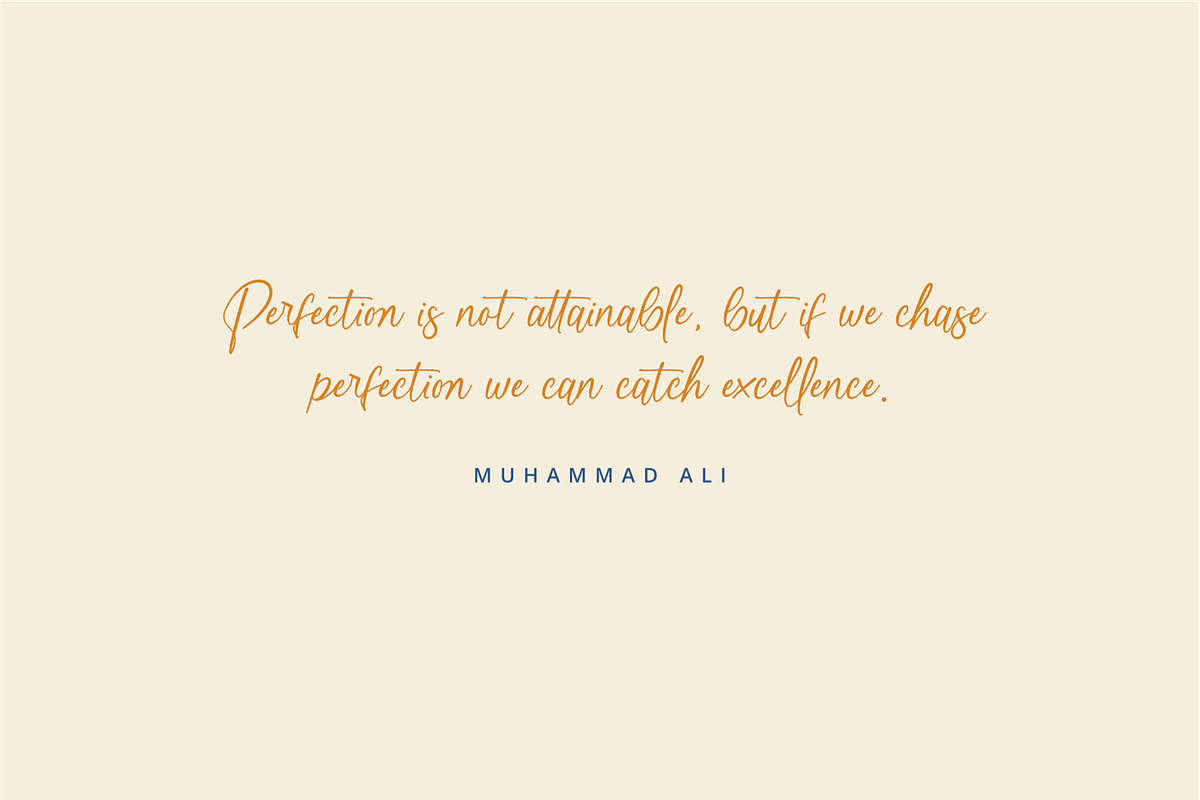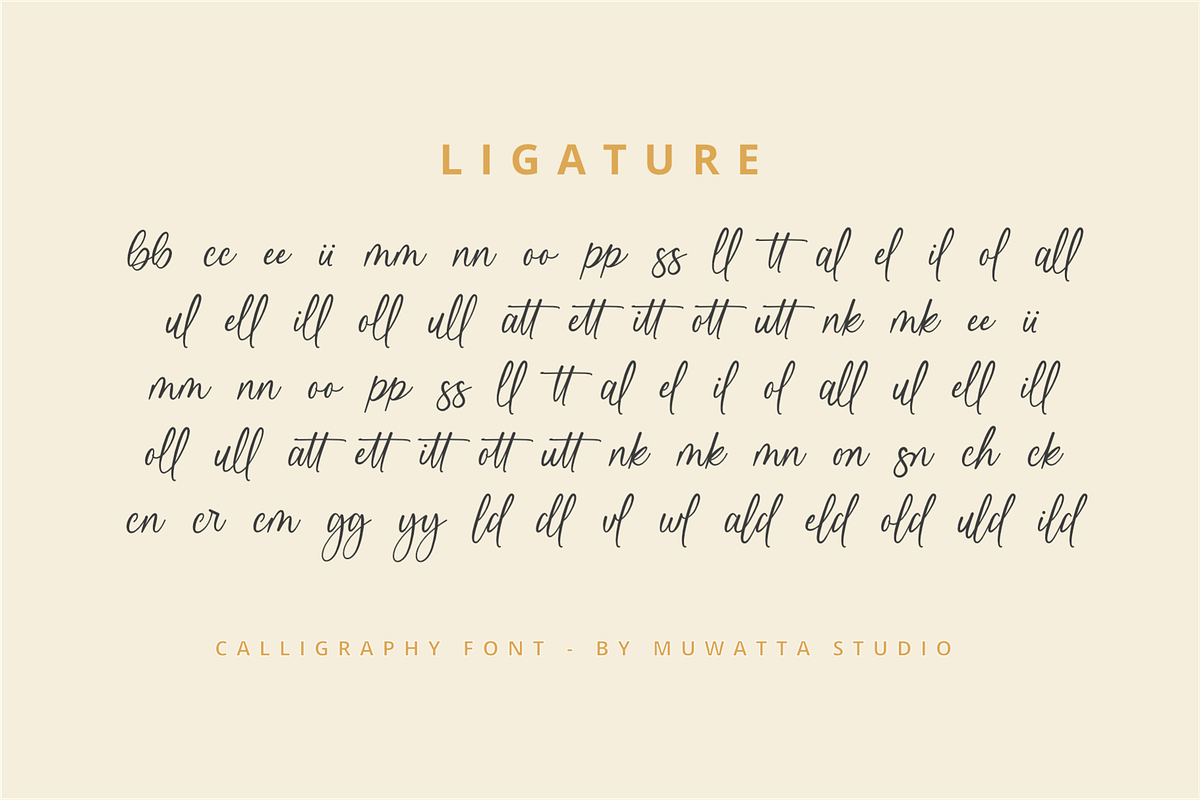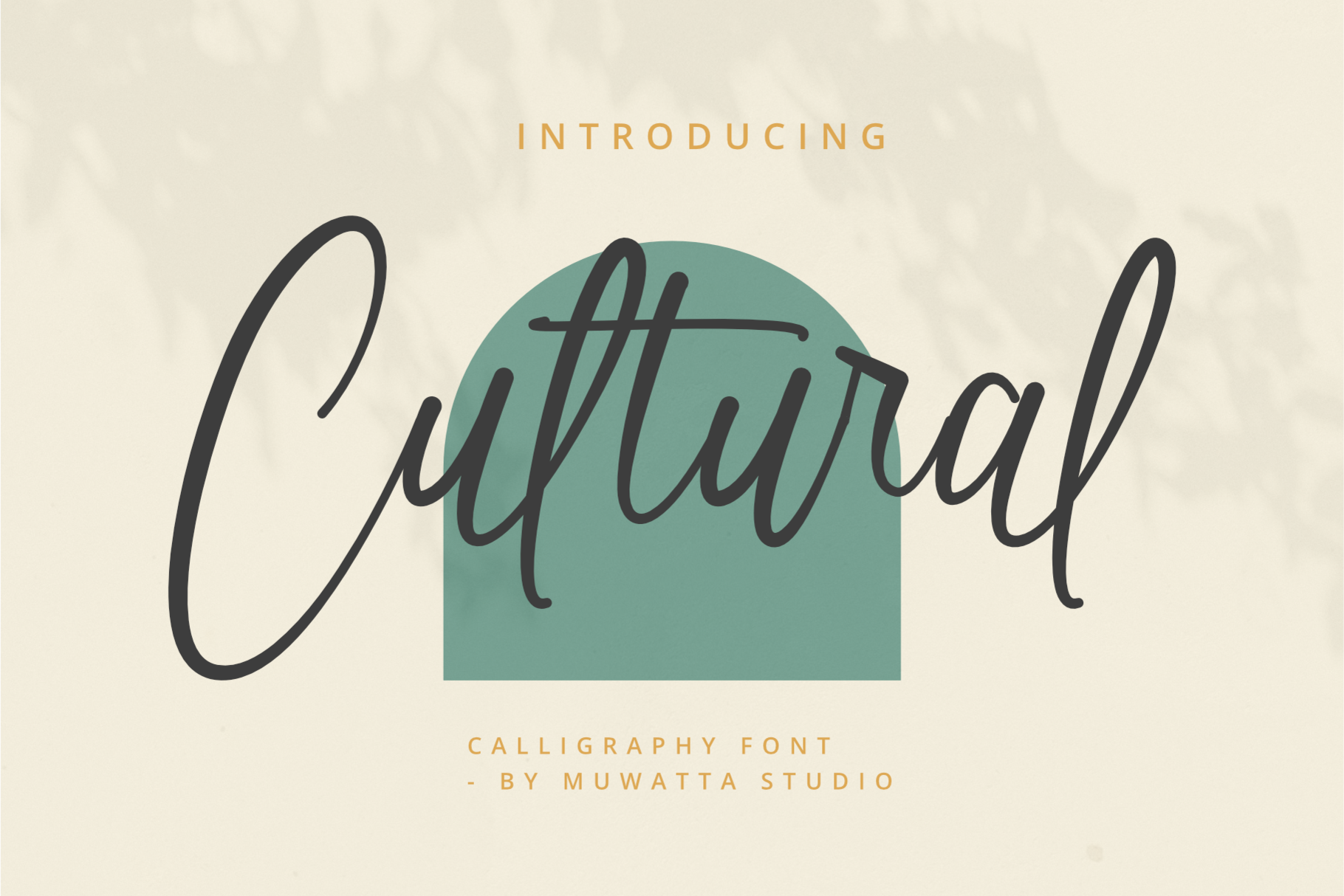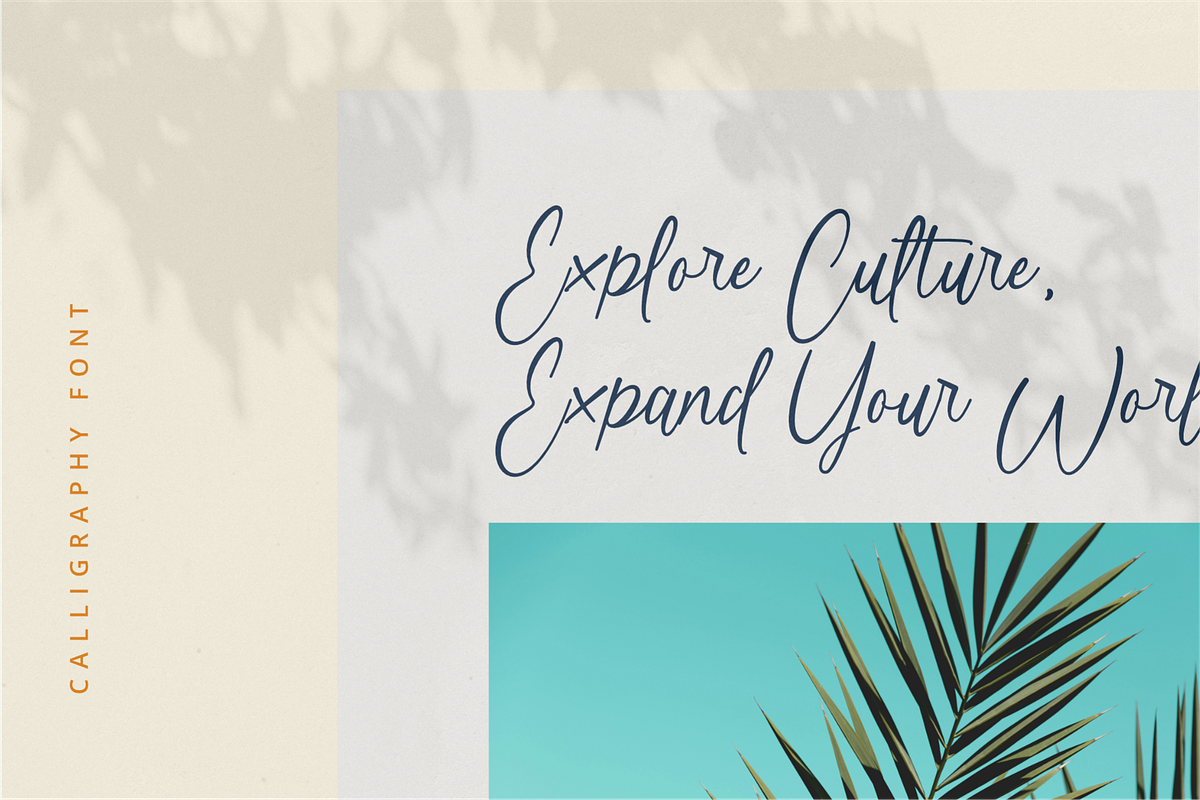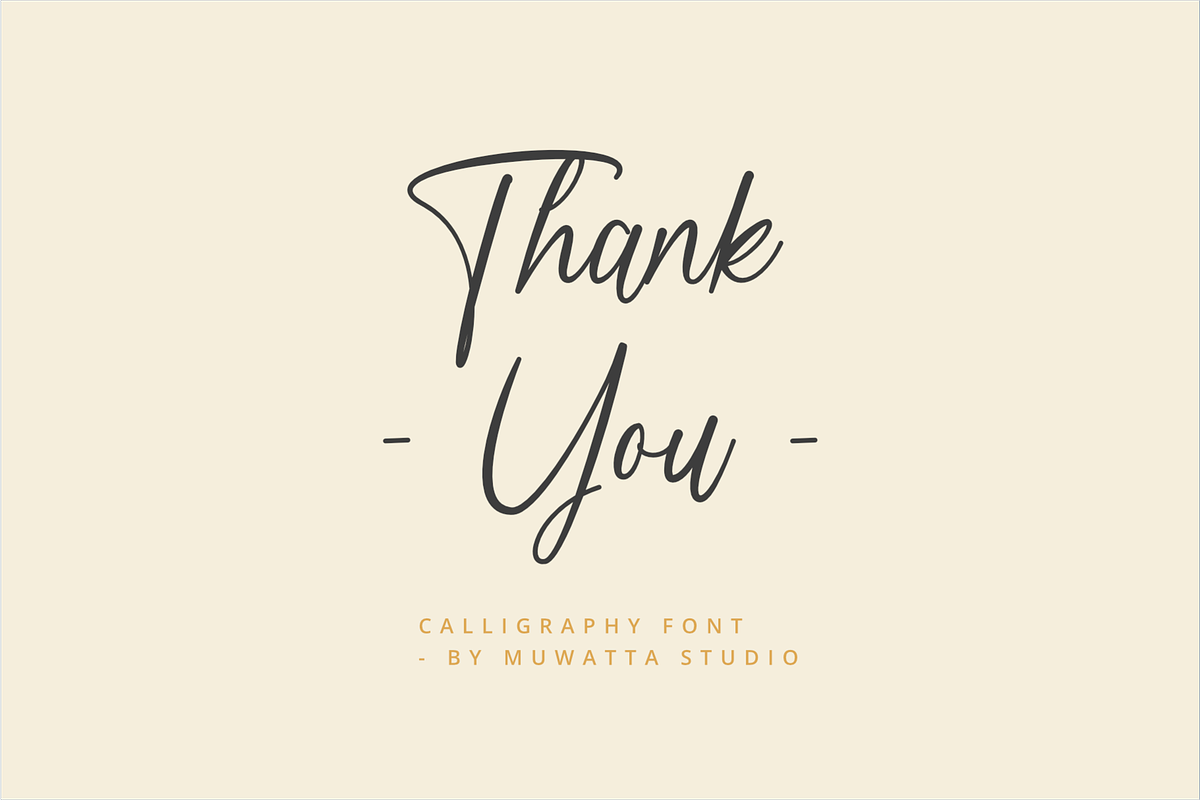
Cultural Font
Cultural is an artistic font designed with a distinctive touch of traditional calligraphy and a strong cultural nuance. With smooth curves and expressive strokes, Cultural is perfect for creative projects that emphasize cultural identity, such as logo designs, traditional event invitations, craft product packaging. Each letter in this font carries warmth and depth of meaning, creating an authentic and captivating visual experience.
-Full alphabet with Uppercase and Lowercase A-Z for script
-Numbers for all fonts
-Punctuation and symbols for all fonts
-Ligature Lowercase script
-Multilingual support all fonts